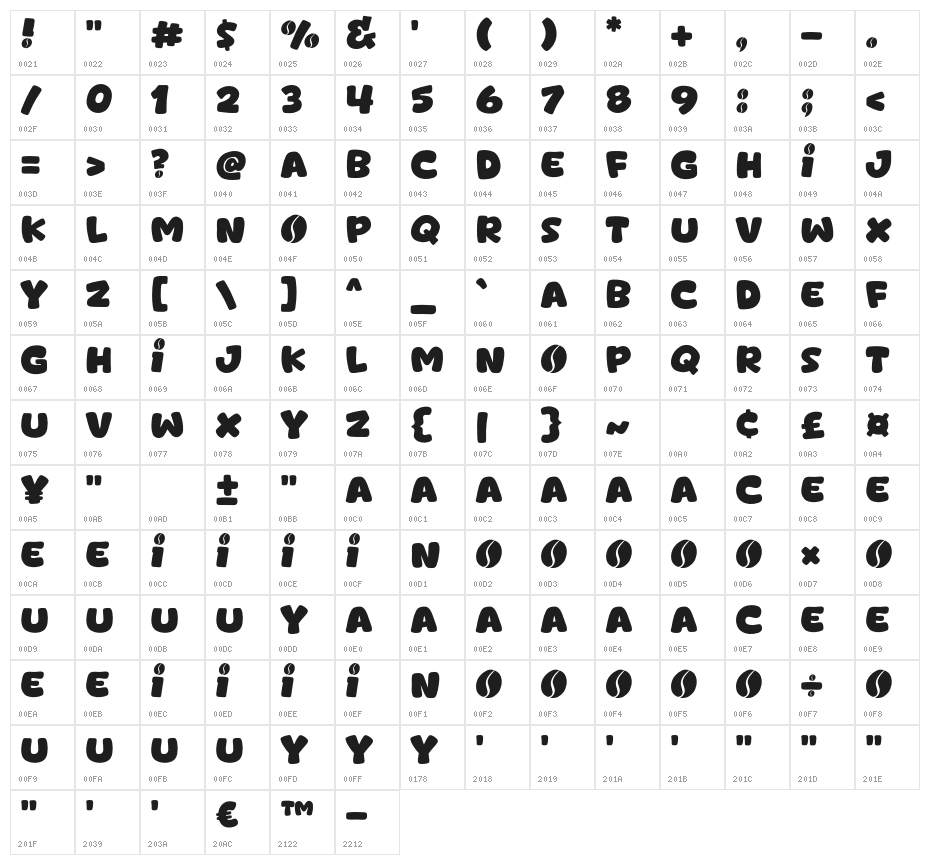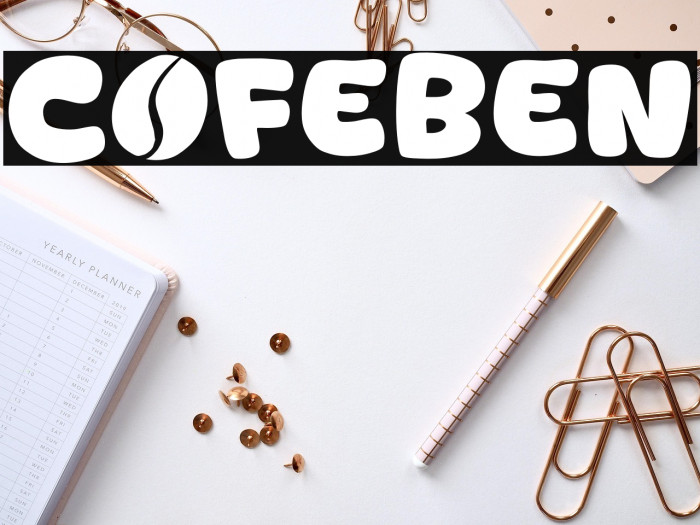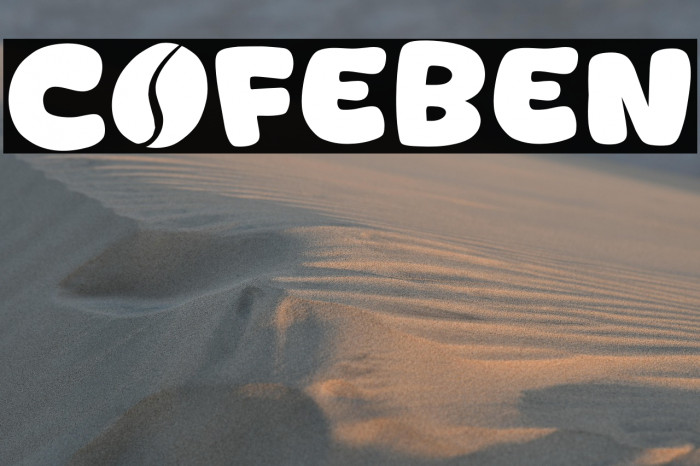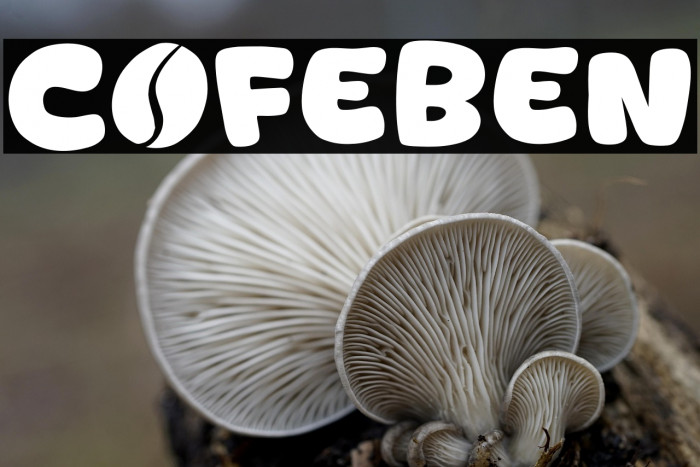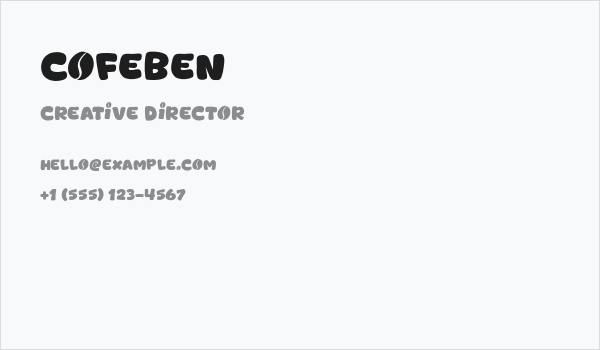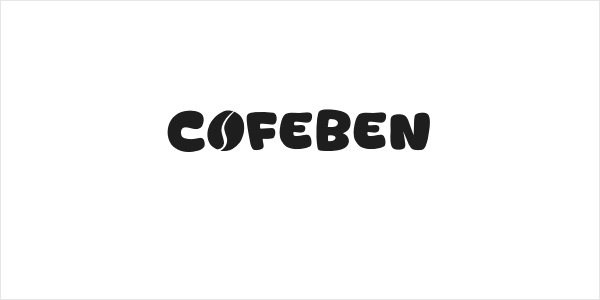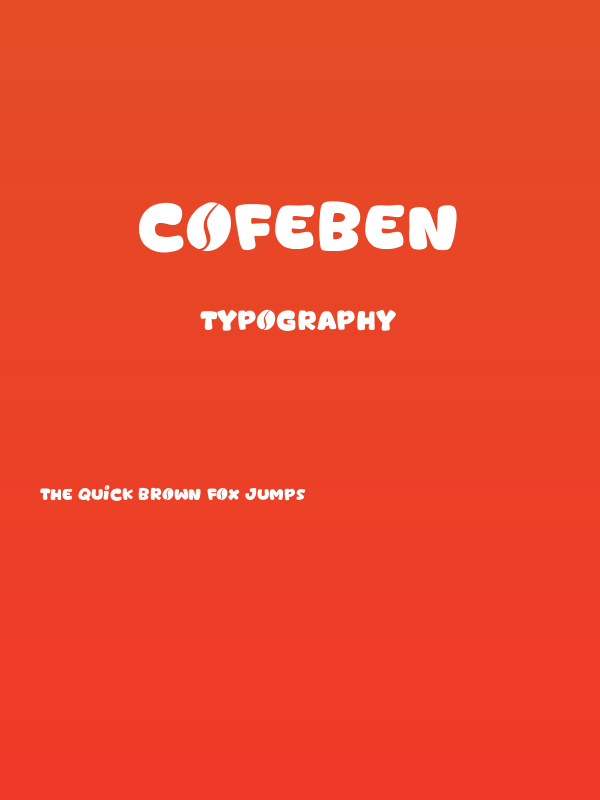
Cofeben Font
Cofeben Description
This playful and bold font features thick, rounded characters with a whimsical touch. The letters are uniformly bold, creating a strong visual impact. The unique design includes subtle variations in the shapes, adding character and charm. The font is highly legible, making it suitable for various creative applications. Its boldness and rounded edges give it a friendly and approachable appearance, ideal for projects that require a fun and engaging look. The numbers and special characters maintain the same playful style, ensuring consistency across all elements.
| Proposed Projects | Ideal for children's books, playful branding, posters, and creative advertising. |